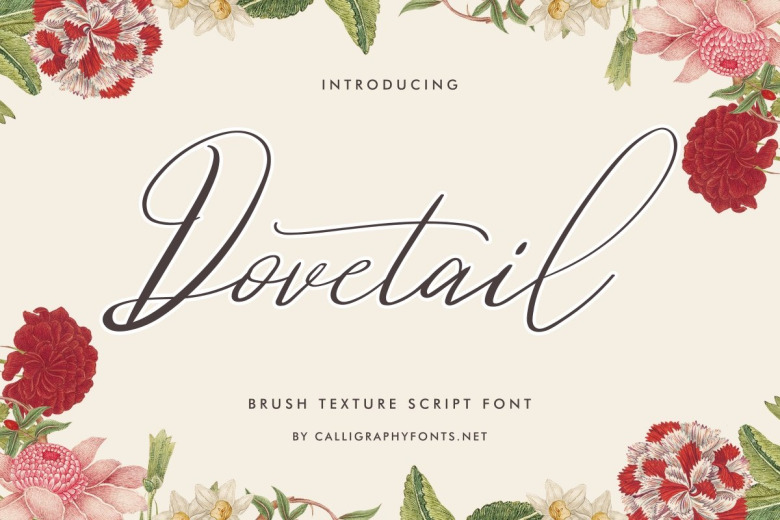
Dovetail Calligraphy Script Font
Dovetail Script Font is a luxurious Calligraphy script typeface. The style of this font are elegant, luxury, glamour, modern and sophisticated calligraphy handwriting font.